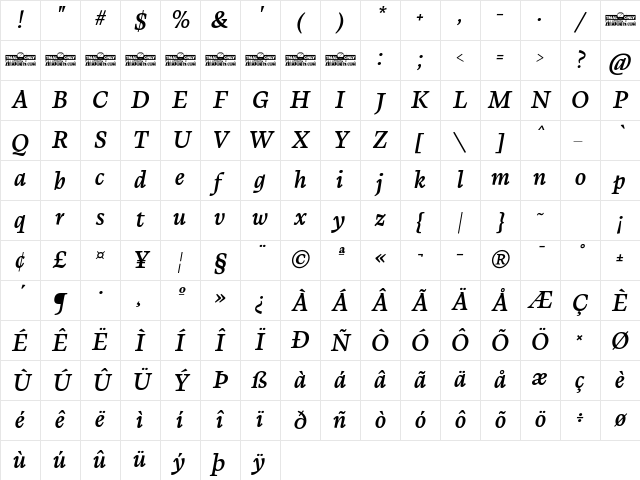
Complete CalvinoTrial Semibold Italic glyph index. Displaying only characters natively supported by CalvinoTrial Semibold Italic font.
CalvinoTrial is a composed and adaptable typeface that performs quietly and consistently across a wide range of design contexts. The slanted form adds forward momentum and visual energy. Its bold stroke weight gives it real presence on the page.